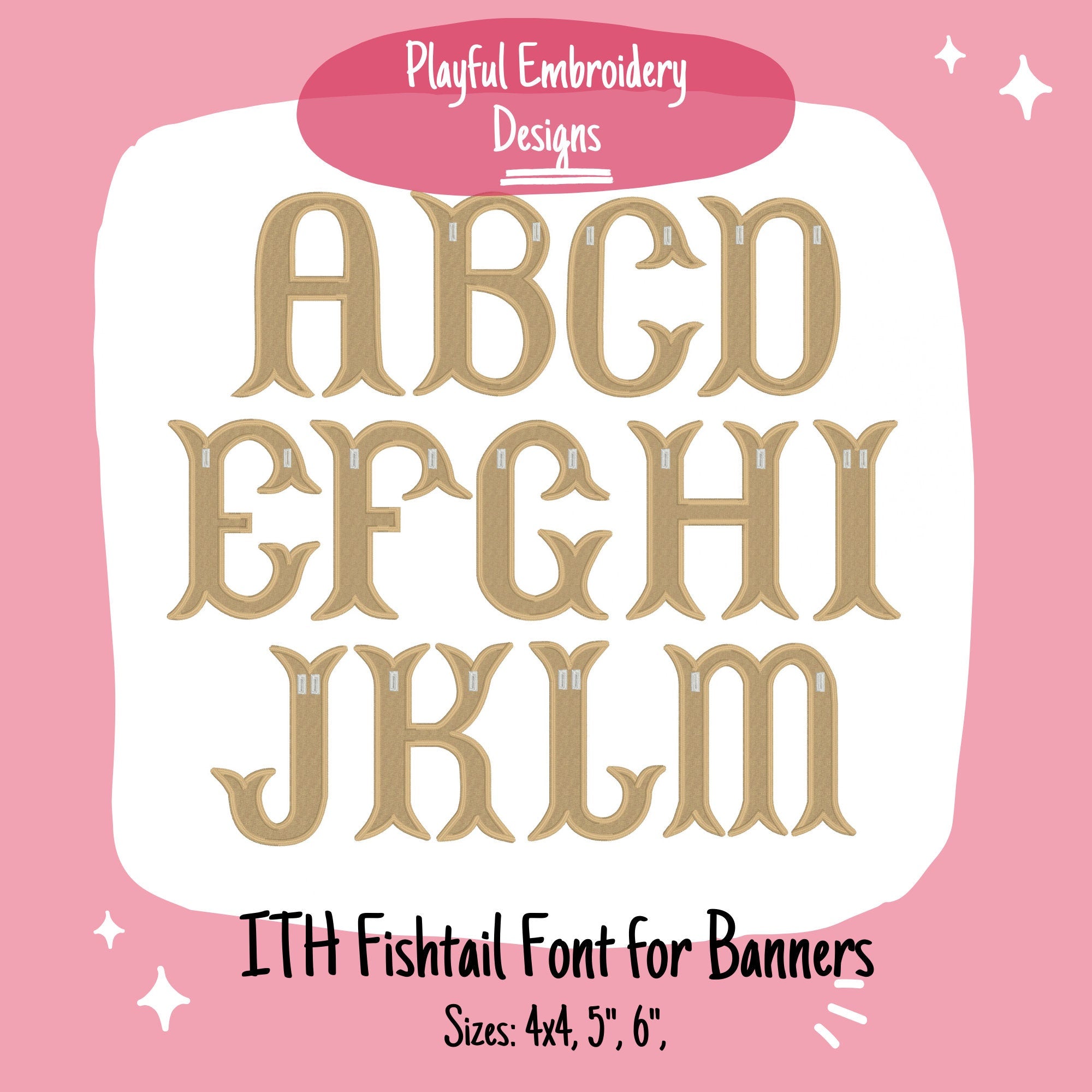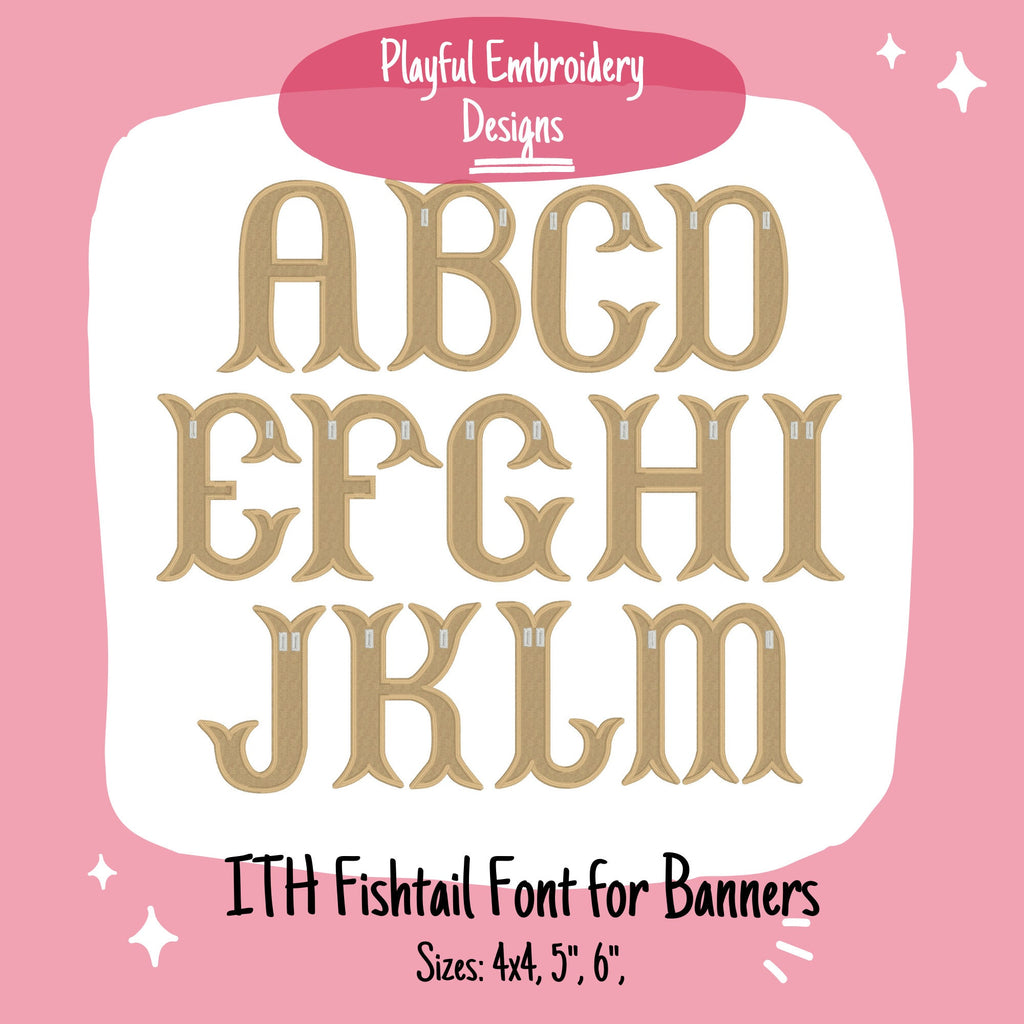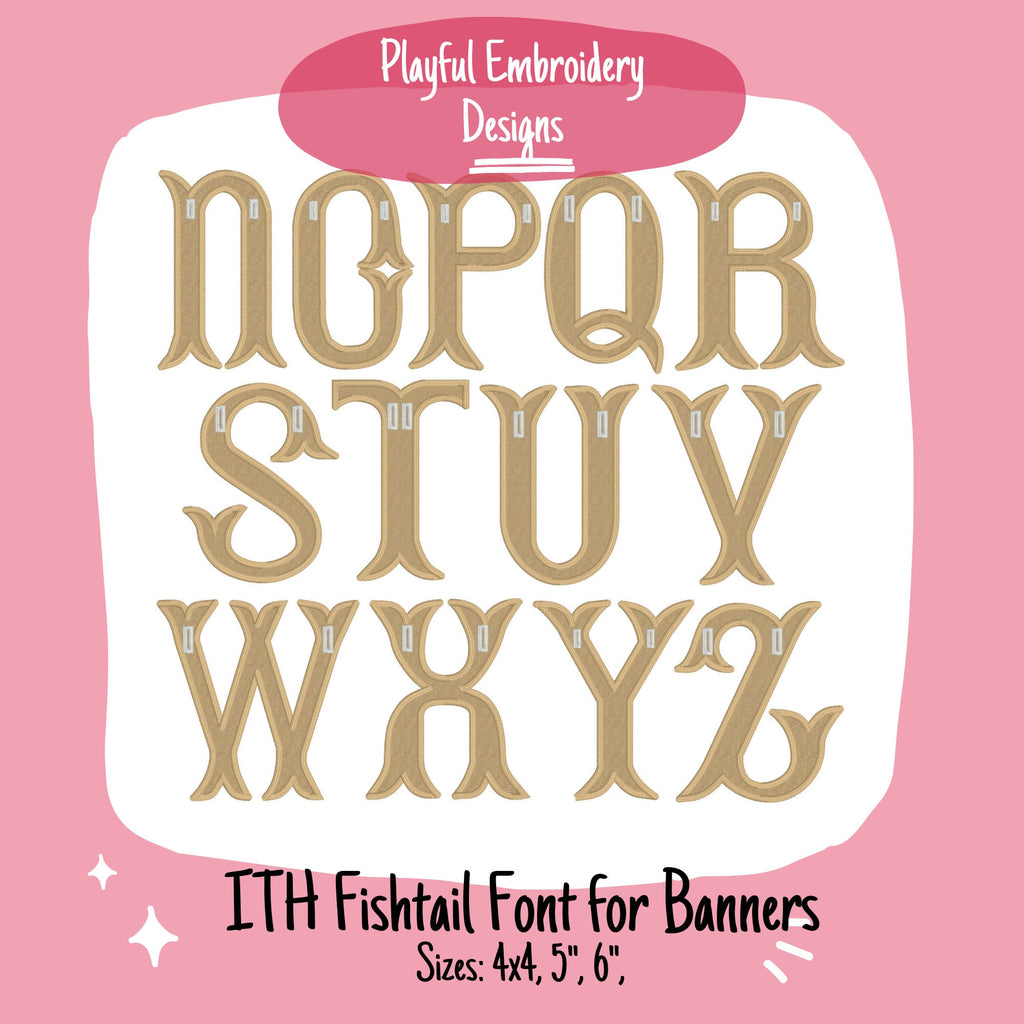
In The Hoop Fishtail Font for Machine Embroidery Design, ITH Satin Stitch Banner Font, ITH Fishtail Font for Banners, ITH Satin Stitch Font
ITH fishtail font for machine embroidery made banners. Each letter has a rectangular hole for ribbon so that you can make special banners for your special occasions. Finished with a Satin stitch edge for a finished look.